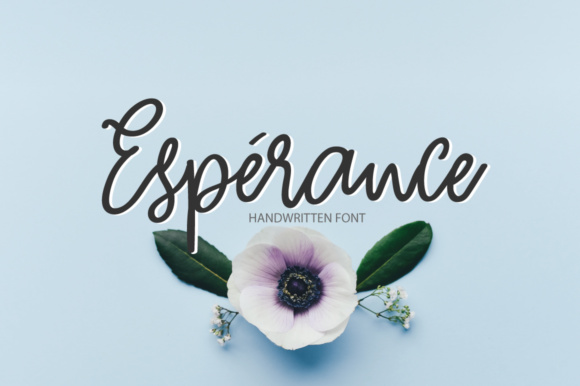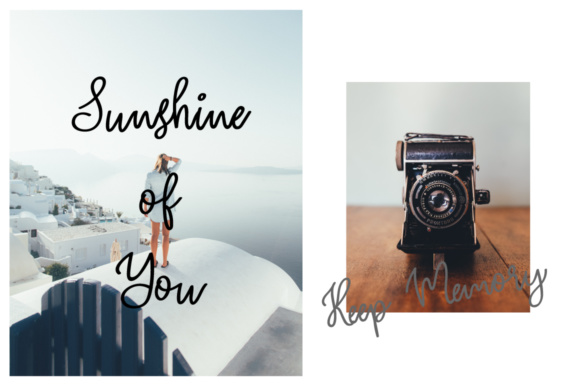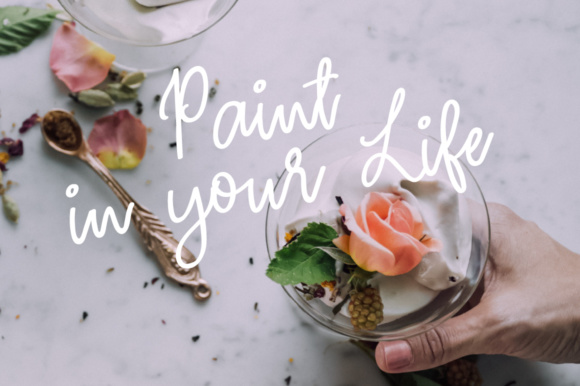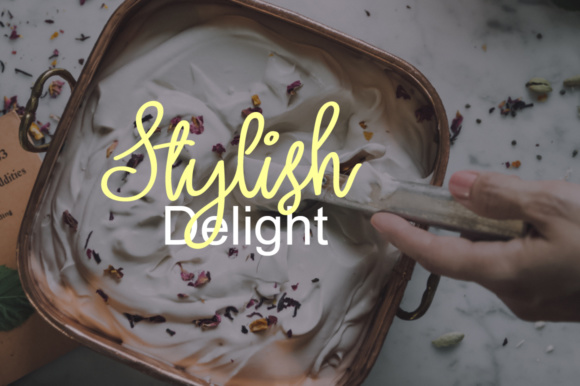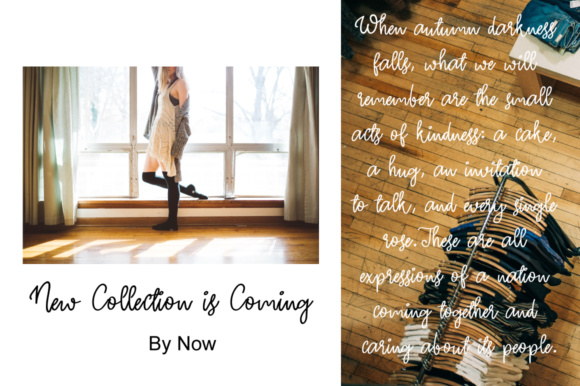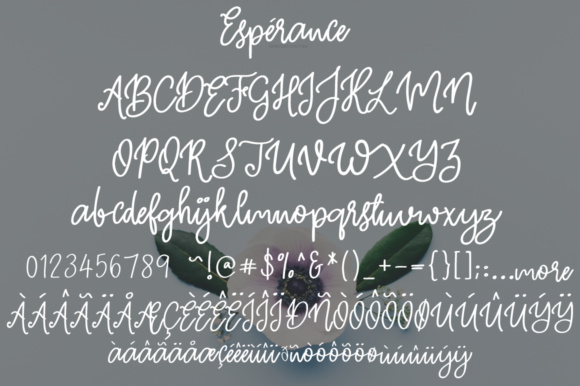
Esperance Font
About Esperance Font
Esperance is a stylish, handwritten script font. Esperance is perfect for many types of projects such as: wedding invitations, blogs, logos or just a beautiful frame for your home.